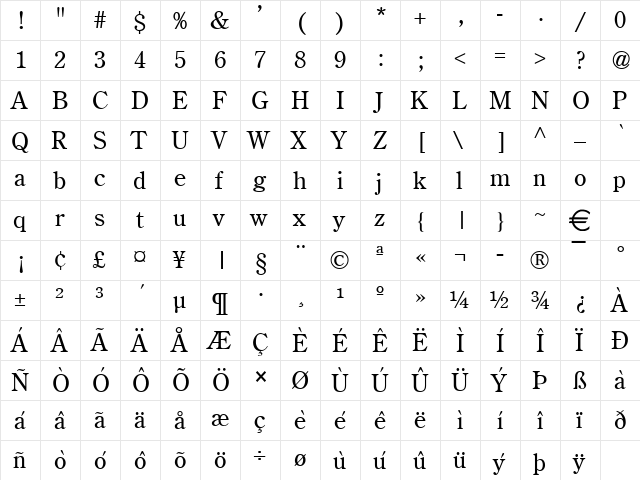
Centime Normal
Design Context for Centime Typeface
Centime takes a measured approach to typography — its balanced proportions and neutral character make it a reliable workhorse for both digital and print work.